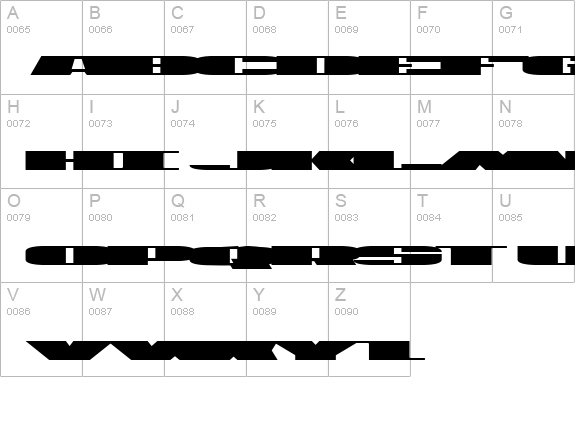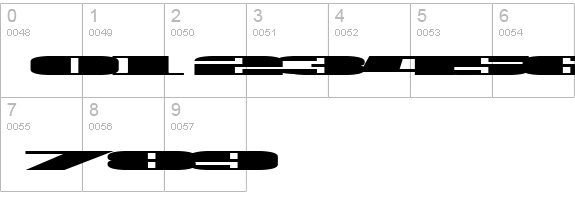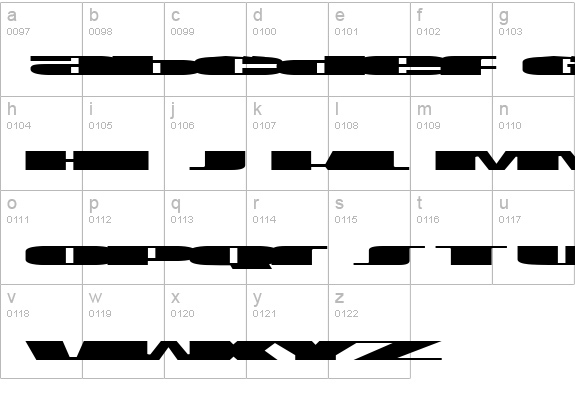
U.S.A. Expanded is a distinctive, extended-width variant in the U.S.A. typeface family \xE2\x80\x94 well suited to design and typography projects.
Introducing the U.S.A. Expanded font, a truly remarkable typeface that embodies the spirit and essence of the United States of America. This font is an expansion of the classic U.S.A. font, offering a bold and powerful aesthetic that captures the nation's strength and resilience. With its wide and commanding letterforms, U.S.A. Expanded is perfect for conveying a sense of authority and patriotism in your designs. But that's not all – U.S.A. Expanded is also a font that embraces the values of freedom and accessibility. It is freely available to download at FontsMarket.com, allowing designers and enthusiasts alike to utilize its impactful style without any monetary barriers. This means that you can effortlessly incorporate U.S.A. Expanded into your projects, whether it's for a national campaign, a celebratory event, or simply to add a touch of American spirit to your designs. The U.S.A. Expanded font offers a versatile range of uppercase and lowercase letters, numerals, and punctuation marks, ensuring that you have everything you need to create visually stunning and impactful designs. Its bold and commanding presence makes it ideal for headlines, titles, banners, and other attention-grabbing elements. Additionally, the font's wide letterforms ensure excellent legibility, even at smaller sizes, making it suitable for body text and paragraphs as well. U.S.A. Expanded is a font that speaks volumes with its powerful design, encapsulating the essence of the United States of America. Download this exceptional font for free at FontsMarket.com and let it inspire your designs with its patriotic flair and captivating presence. Embrace the freedom to create impactful designs, and bring a touch of American spirit to your projects with U.S.A. Expanded.